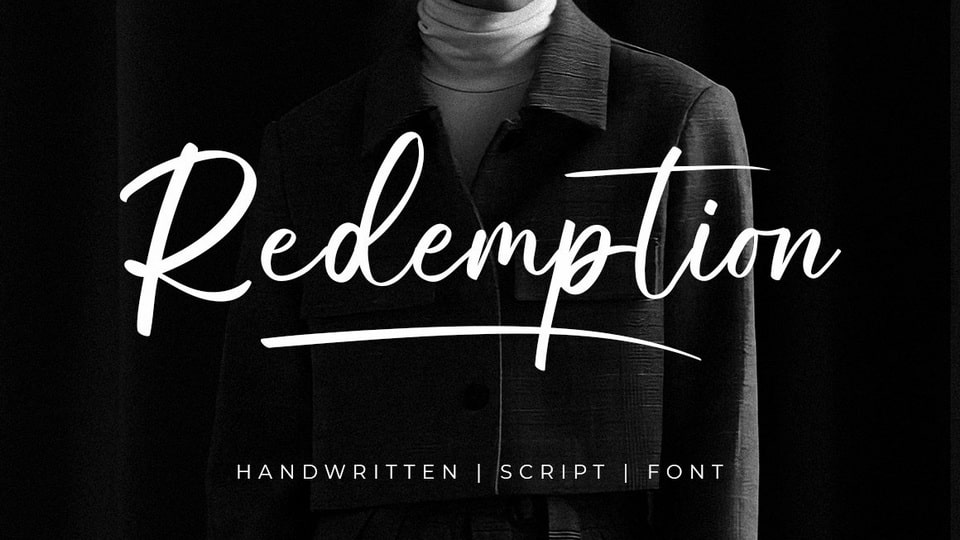
Download Redemption font, an elegant and casual handwritten font. This stylish font will look gorgeous on a variety of design ideas and add a joyful and natural touch to each of your projects.